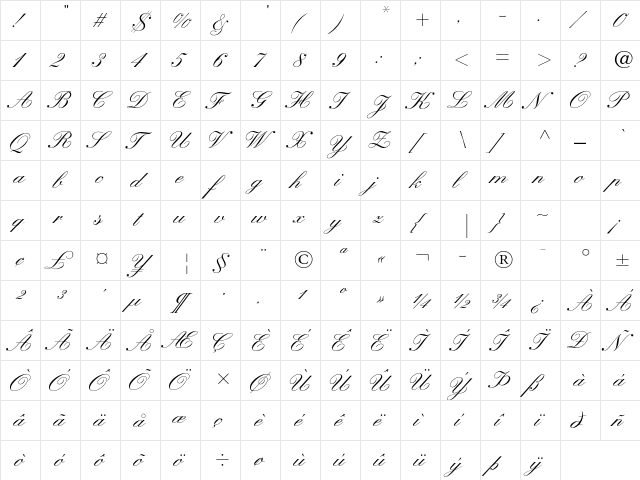
K߮stler Script LT Std Medium Regular Font Preview
| Designer | Hans Bohn |
Design Context for K߮stler Script LT Std Medium Typeface
K߮stler Script LT Std Medium flows with the natural rhythm of handwritten lettering, making it ideal for designs that call for warmth and personal expression. Its slender proportions lend an understated elegance to any composition.
Font Pairing: Combine K߮stler Script LT Std Medium with a simple geometric sans for maximum contrast — the tension between flowing curves and clean structure is a classic typographic pairing.
Pro Tip: Use K߮stler Script LT Std Medium for short runs of text — names, titles, or taglines. Extended body copy in script faces tires the eye quickly.